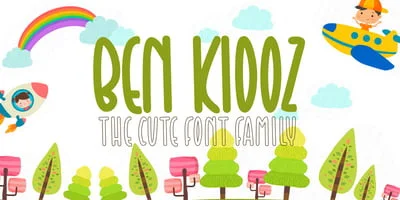
Ben Kidoz Font
Ben Kidoz Font is perfect for children's entertainment branding, kids' educational materials, playful toy packaging, colorful daycare signage, fun birthday party invitations, cheerful children's books, animated character designs, and vibrant family activity promotions.
Ben Kidoz Font is exciting because it captures the boundless energy and imaginative spirit of childhood adventure through its playful character design that embodies the joyful creativity of kids' drawings and the enthusiastic excitement of playground discoveries. Its kid-friendly styling and energetic appeal make it the perfect choice for brands that want to communicate fun, learning, and the wonderful world of childhood imagination.
Ben Kidoz Font family includes multiple playful variations: Ben Kidoz Regular, Ben Kidoz Bold, Ben Kidoz Light, Ben Kidoz Crayon, Ben Kidoz Bubble, and Ben Kidoz Cartoon, along with colorful decorative elements and child-friendly symbols, providing designers with comprehensive tools for creating authentic children's and educational-themed brand experiences.
When exploring children's typography solutions, Ben Kidoz Font stands out as the ultimate choice for designers working on kids' entertainment and educational projects that require genuine child-friendly sophistication and playful appeal. This delightful typeface embodies the essence of childhood creativity while offering the versatility needed for modern children's product marketing and educational communications. The font's energetic character and kid-centered resonance create immediate connections with audiences who prioritize children's development and family entertainment.
Children's brand professionals consistently turn to Ben Kidoz Font for projects requiring authentic kid-friendly sophistication and powerful playful appeal. Its carefully crafted letterforms feature child-inspired influences that work exceptionally well in both large-scale children's entertainment venues and intimate educational product packaging applications. The font's ability to convey fun and learning excitement while maintaining strong brand recognition makes it invaluable for comprehensive identity systems in the children's entertainment, educational products, and family activity sectors.
Whether you're developing kids' entertainment identities, creating educational marketing materials, or designing family activity promotions, Ben Kidoz Font delivers the authentic child-friendly character and playful appeal that resonates with audiences who celebrate childhood wonder and educational fun. Its kid-centered significance and energetic design ensure your projects capture the boundless imagination of childhood while maintaining contemporary professional standards that attract modern families and children's entertainment enthusiasts.